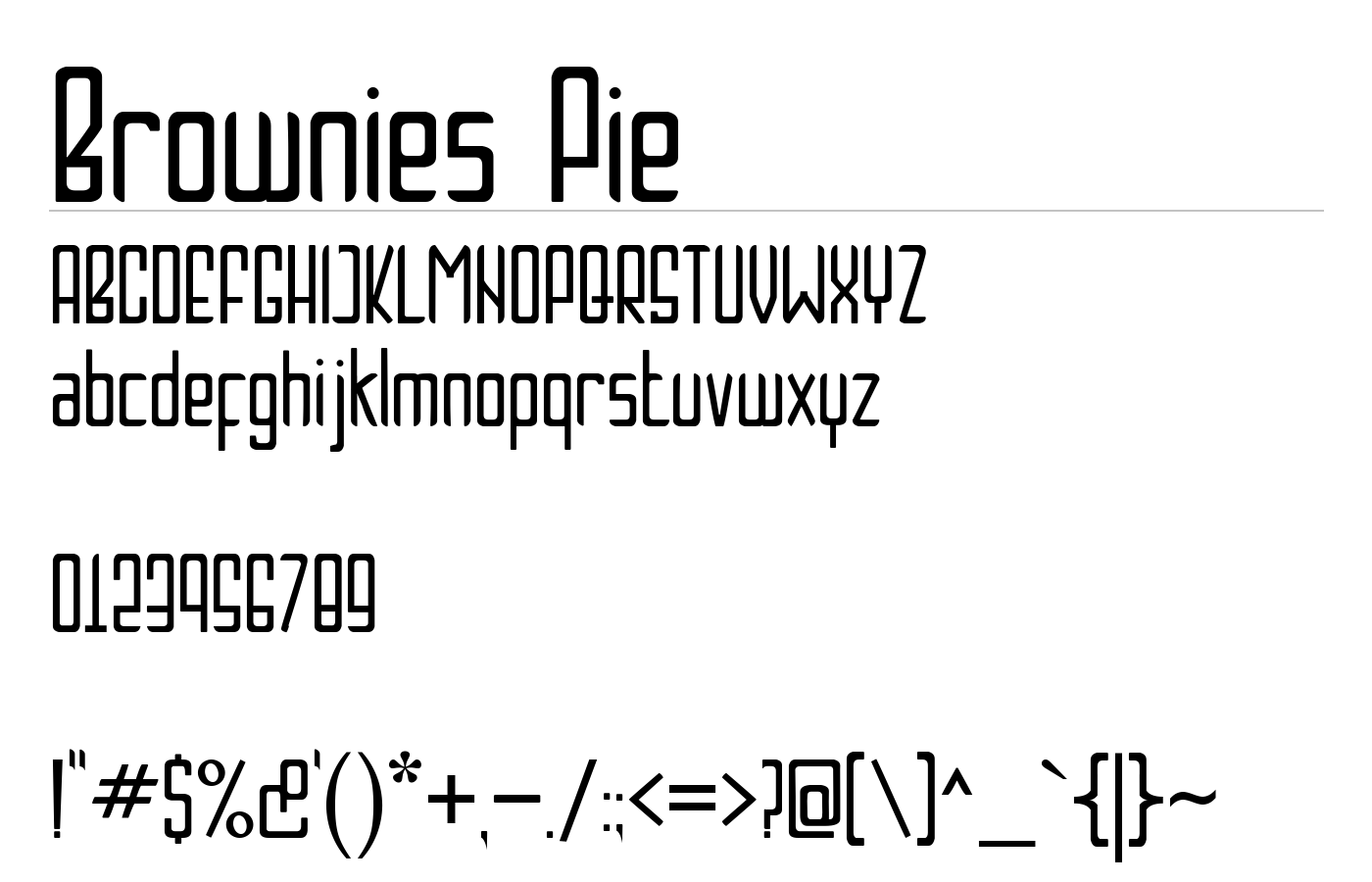
Brownies Pie is a narrow, sans serif font with a modern and slightly geometric feel. Its tall, condensed letters have consistent stroke weights and unique angular details that give it a clean yet distinctive personality, making it great for stylish headlines, logos, and editorial designs where a sleek, contemporary look is desired. This font works well in creative branding and display uses, thanks to its strong presence and easy readability.
Brownies Pie Font
About Brownies Pie Font